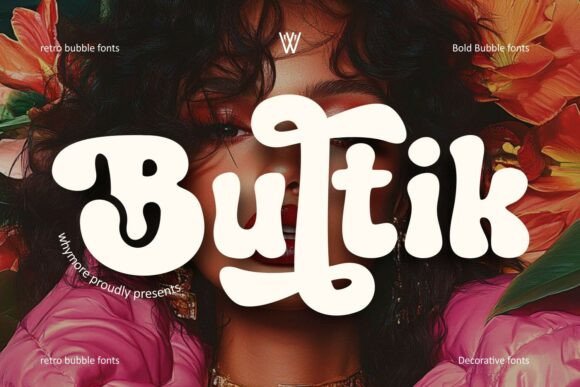
Bultik Font: The Ultimate Retro Bubble Font for Your Design Projects
Are you looking for a font that can add a touch of nostalgia and playfulness to your design projects? Look no further than the Bultik Font. This retro bubble font is designed to evoke the warm feel of the 70s with a stylish and distinctive modern touch. In this article, we’ll explore the features and benefits of the Bultik Font and why it’s the perfect choice for designers who want to create a visual identity that’s both unique and memorable.
What is Bultik Font?
Bultik Font is a retro bubble font that exudes a friendly, fun, and expressive impression. Each curve of the letters has a bold and soft shape that creates a warm and inviting atmosphere, perfect for design projects that want to stand out and have a free spirit. This font is designed to provide a strong visual identity, with unique decorative shapes that are memorable and flexible for use in various creative contexts.
Key Features of Bultik Font
- Retro-modern design: Bultik Font has a distinctive retro-modern design that’s perfect for designers who want to create a nostalgic atmosphere in their designs.
- Bold and soft curves: Each curve of the letters has a bold and soft shape that creates a friendly, fun, and expressive impression.
- Unique decorative shapes: Bultik Font has unique decorative shapes that are memorable and flexible for use in various creative contexts.
- Flexible and versatile: This font is suitable for use in a wide range of design projects, from vintage posters and album covers to fashion branding and packaging.
- ✅ It gives a soft and adorable retro-modern impression: Bultik Font is designed to evoke a warm and inviting atmosphere that’s perfect for designers who want to create a nostalgic feel in their designs.
- ✅ It is ideal for branding, quotes, merchandise, and editorial design: This font is suitable for use in a wide range of design projects, from branding and quotes to merchandise and editorial design.
- ✅ It is suitable for designers who want to create a visual identity with unique and memorable characters: Bultik Font has unique decorative shapes that are memorable and flexible for use in various creative contexts.
- ✅ It is created with a balance between playful and elegant, so it remains easy to read in various sizes: This font is designed to be both playful and elegant, making it easy to read in various sizes.
Design Ideas for Bultik Font
- Vintage posters: Use Bultik Font to create eye-catching vintage posters that evoke a nostalgic atmosphere.
- Album covers: This font is perfect for creating album covers that have a retro-modern feel.
- Fashion branding: Use Bultik Font to create a unique and memorable visual identity for your fashion brand.
- Packaging design: This font is suitable for use in packaging design, from food labels to product packaging.
- Editorial design: Use Bultik Font to add a touch of nostalgia and playfulness to your editorial designs, from magazines to newspapers.
Tips for Using Bultik Font
- Experiment with different sizes: Bultik Font is designed to be easy to read in various sizes, so don’t be afraid to experiment with different sizes to find the one that works best for your design project.
- Use it with other fonts: Bultik Font can be paired with other fonts to create a unique and memorable visual identity.
- Play with colors: This font looks great in a wide range of colors, so don’t be afraid to experiment with different colors to find the one that works best for your design project.
In conclusion, Bultik Font is a retro bubble font that’s perfect for designers who want to create a visual identity that’s both unique and memorable. With its bold and soft curves, unique decorative shapes, and flexible and versatile design, this font is suitable for use in a wide range of design projects. Whether you’re creating vintage posters, album covers, fashion branding, or packaging design, Bultik Font is the perfect choice. So why wait? Download Bultik Font today and start creating designs that stand out from the crowd!